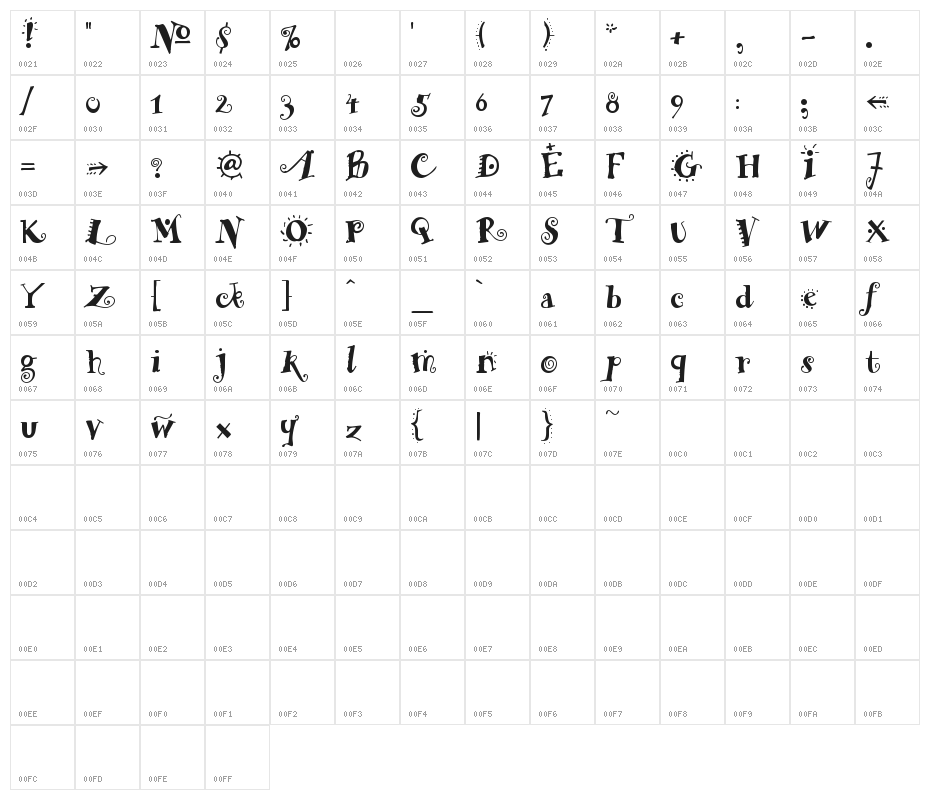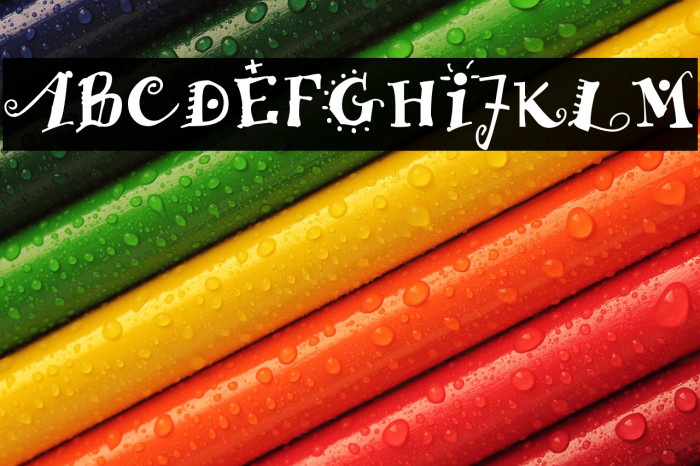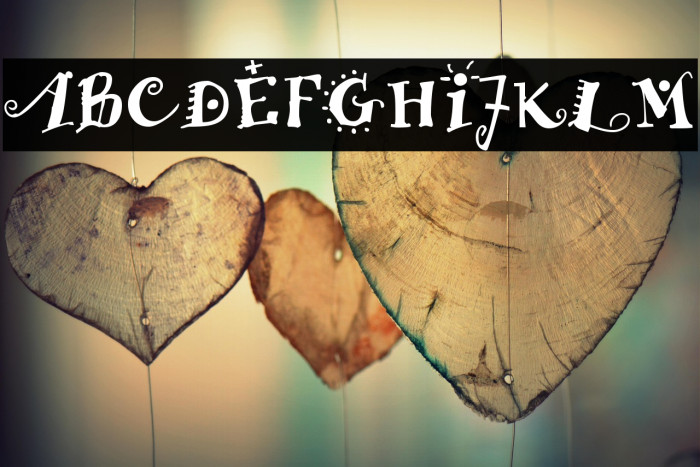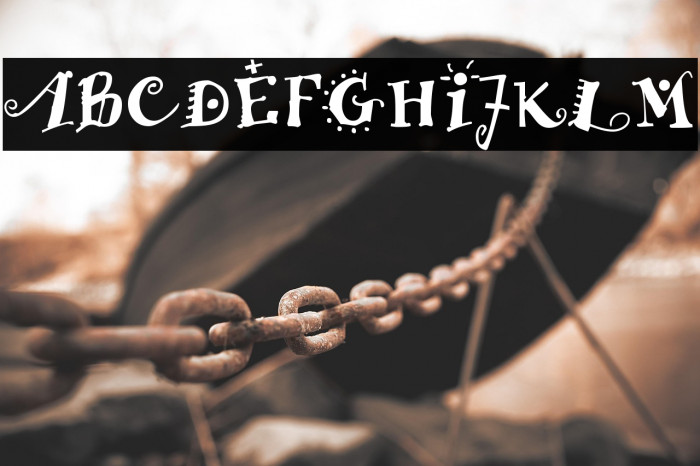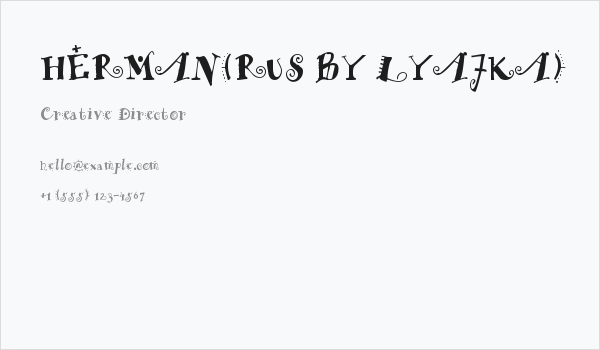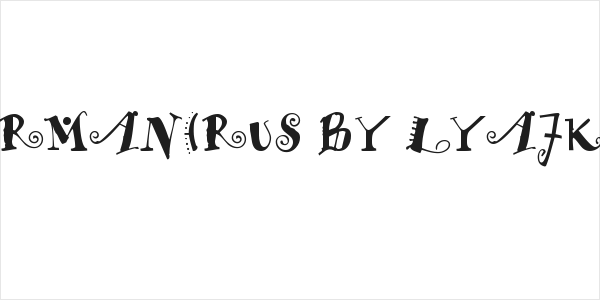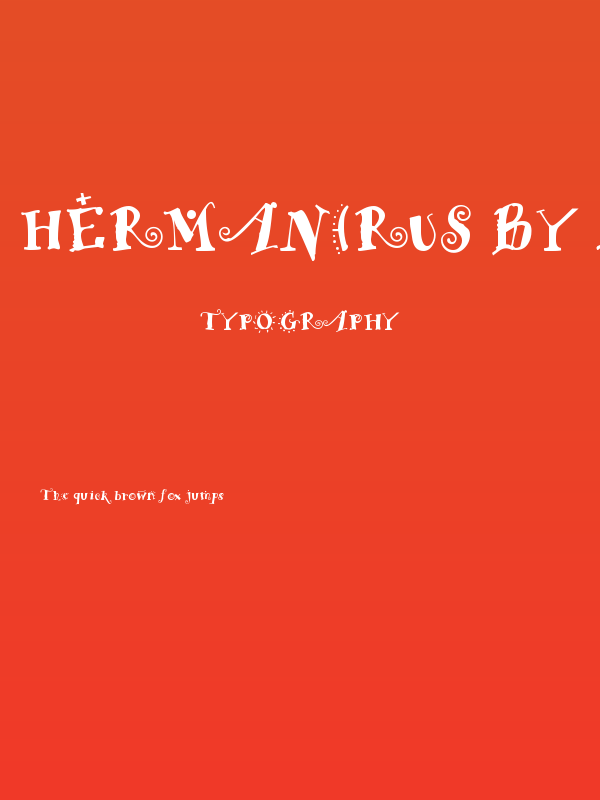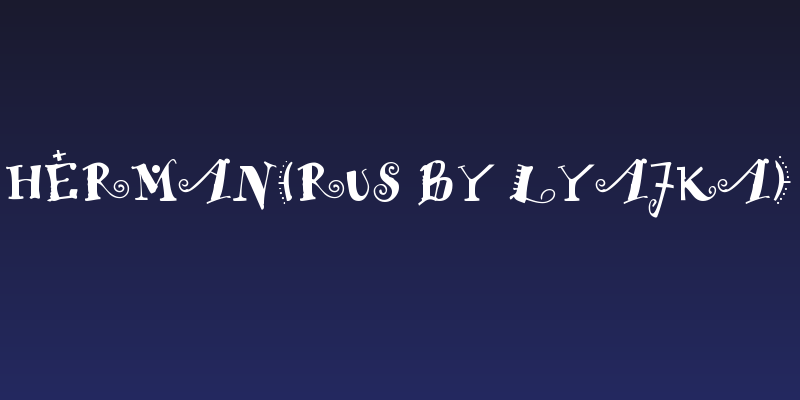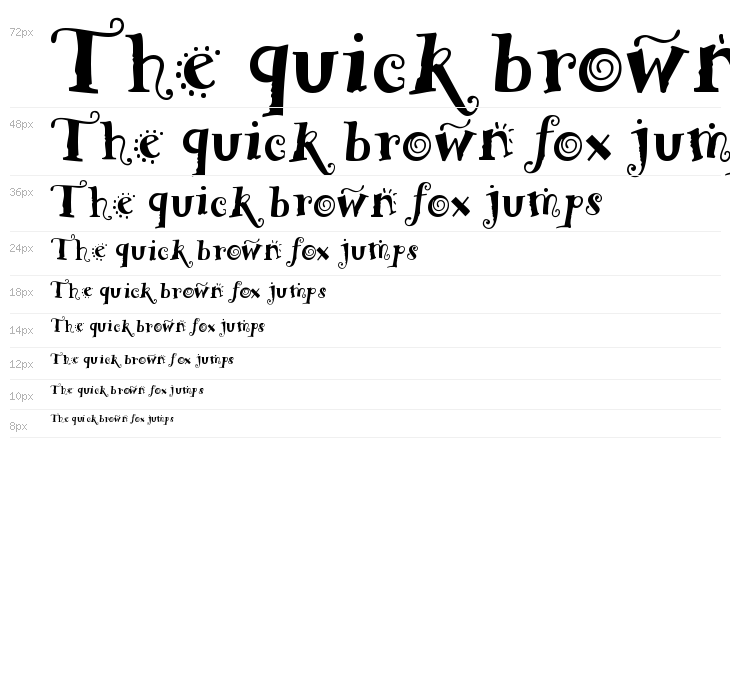
HERMAN(RUS BY LYAJKA) Font
HERMAN(RUS BY LYAJKA) Description
This font features a whimsical and playful design, characterized by its decorative elements and unique embellishments. Each letter is adorned with dots, swirls, and other artistic details, giving it a lively and dynamic appearance. The uppercase letters are bold and expressive, while the lowercase letters maintain a consistent style with added flair. Numbers and special characters follow the same decorative theme, making the font suitable for creative and artistic projects. The overall design is eye-catching and full of personality, making it ideal for projects that require a touch of fun and creativity.